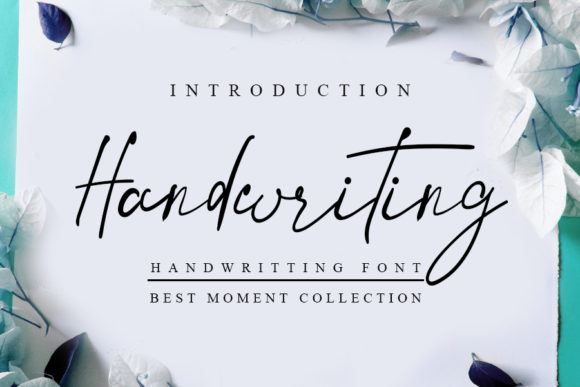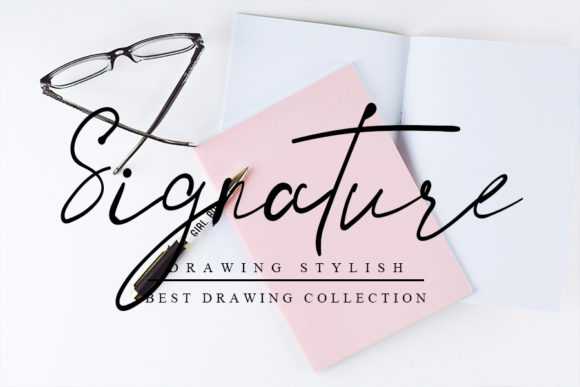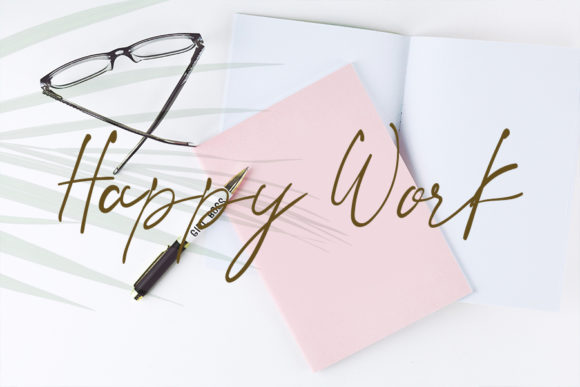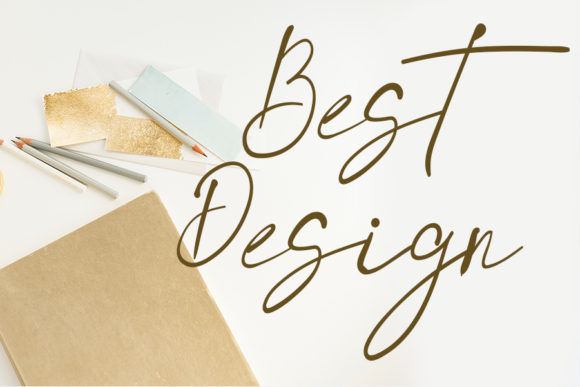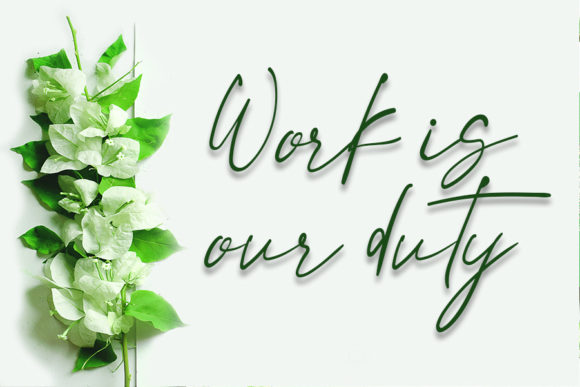
Handwriting Font
About Handwriting Font
Introducing “Handwriting,” a flowing handwritten font that captures the essence of personal touch and elegance. Its captivating allure makes it an ideal choice for a wide range of design projects, infusing a touch of handcrafted sophistication into every creation. Whether you’re working on branding, quotes, invitations, or any other design, “Handwriting” will captivate your heart with its distinct and timeless charm.
With “Handwriting,” you have a font that flows with graceful fluidity, reminiscent of the genuine strokes of handwriting. Its authentic handwritten style brings an air of uniqueness and refinement to your designs, creating a visual experience that is both elegant and captivating. Whether you’re crafting personalized branding, heartfelt quotes, or inviting invitations, this font adds a layer of beauty that resonates deeply.
The versatility of “Handwriting” lies in its ability to seamlessly complement various design styles and themes. Its flowing and elegant appeal makes it a dependable choice for all your creative endeavors that aim to convey authenticity and sophistication.
Unleash your creativity and witness how “Handwriting” enhances your designs with its elegant and refined touch. Whether you’re designing genuine logos, creating meaningful stationery, or producing engaging social media graphics, this font will infuse your work with a sense of authenticity and allure that connects with the heart.
So, embrace the allure of “Handwriting” and let it become an extension of your personal expression in your design toolkit. Allow its distinct and timeless style to inspire your designs, transforming them into spectacular works that resonate with authenticity and elegance. Whether you’re an experienced designer or a passionate enthusiast, “Handwriting” empowers you to create visuals that reflect individuality and make a statement. Let “Handwriting” be the key to unlocking the beauty of genuine expression in your designs, and watch as it elevates your projects to new levels of excellence and personal connection!